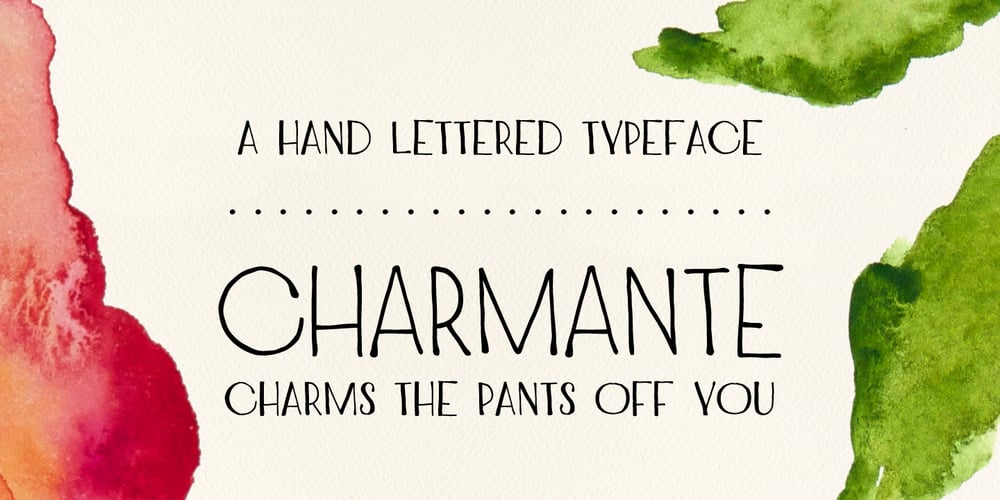
Charmante
Charmante font
Charmante Font Family was designed by Juraj Chrastina and published by Juraj Chrastina. Charmante contains 2 styles and family package options. Let’s add a little charm between letters with this sweet and straightforward hand-drawn typeface. Charmante is ideal for save-the-dates, wedding announcements, invitation cards, greeting cards, gift tags, cafe or restaurant menus and for any other lovely and charming design.